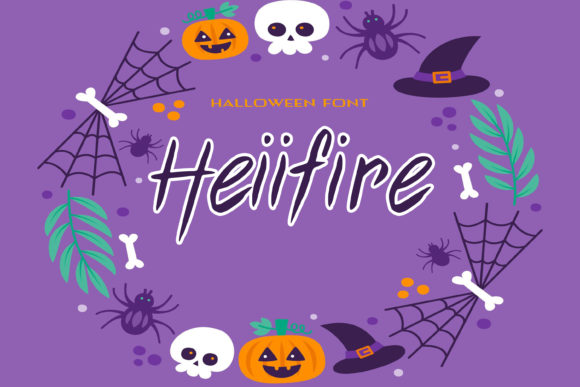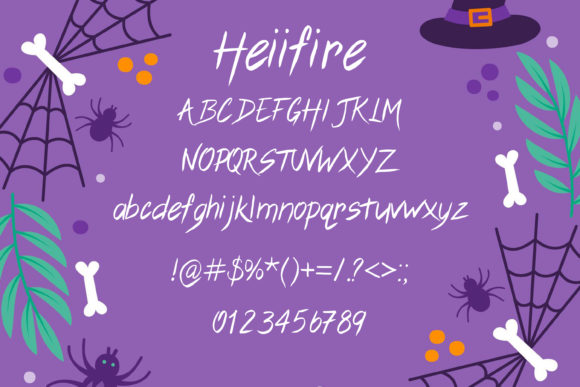
Heiifire Font
About Heiifire Font
Heiifire is a thin and simple lettered handwritten font. A little creepy, this flowing font is perfect for each of your Halloween crafting ideas.